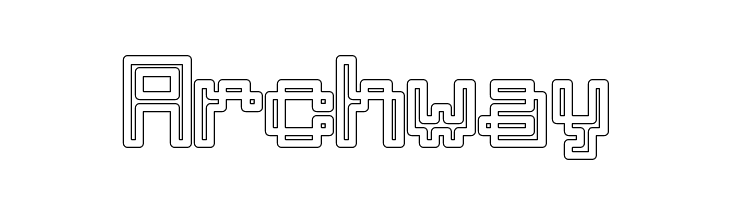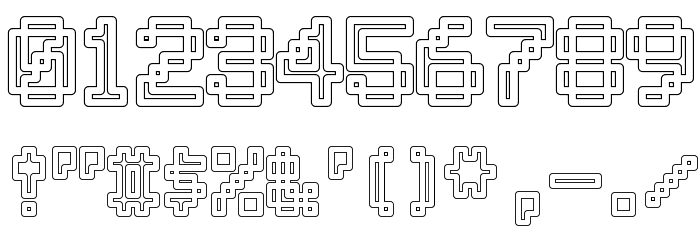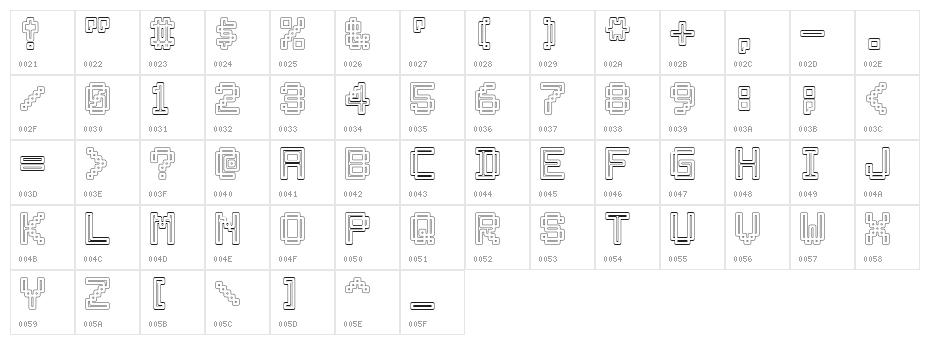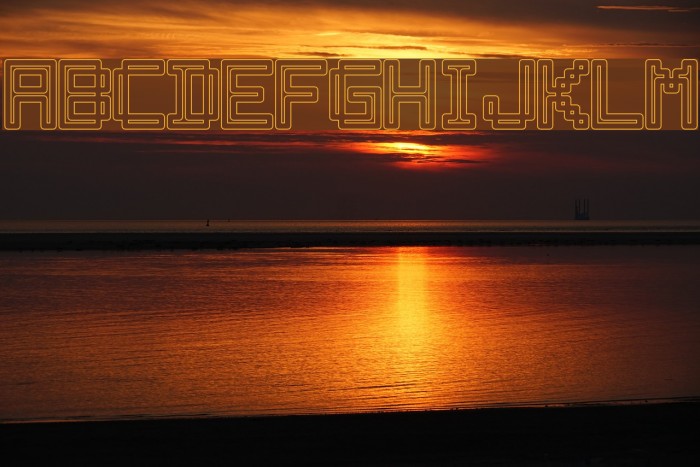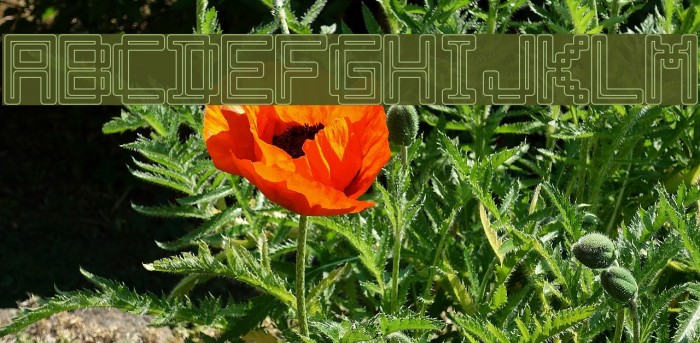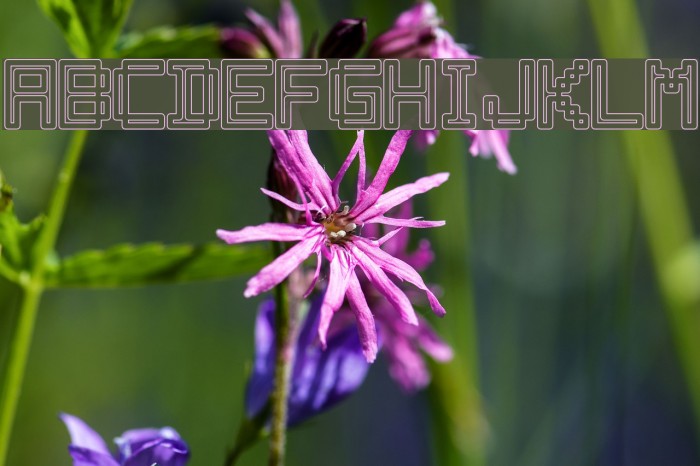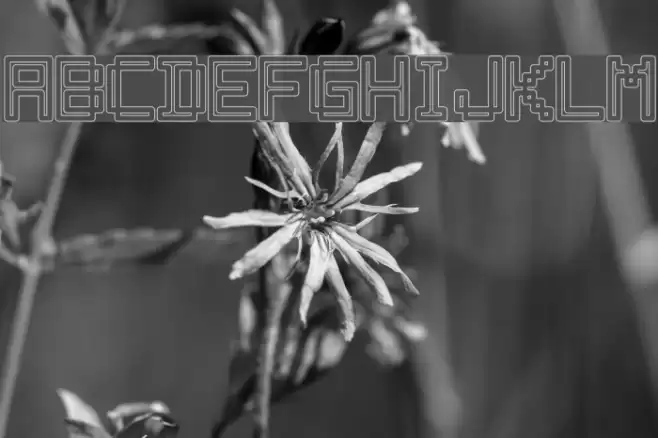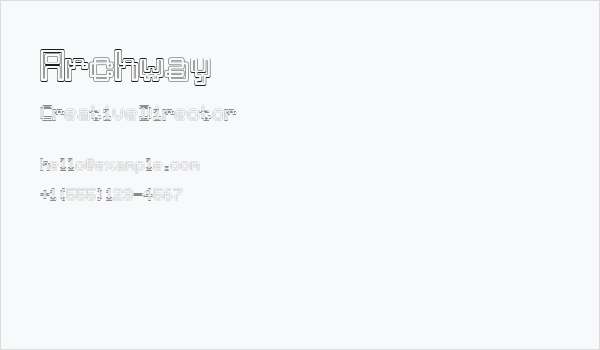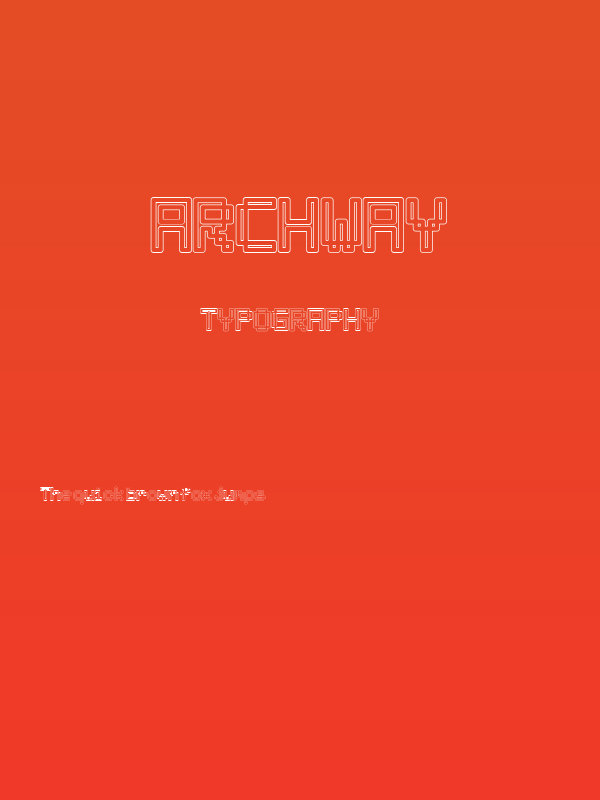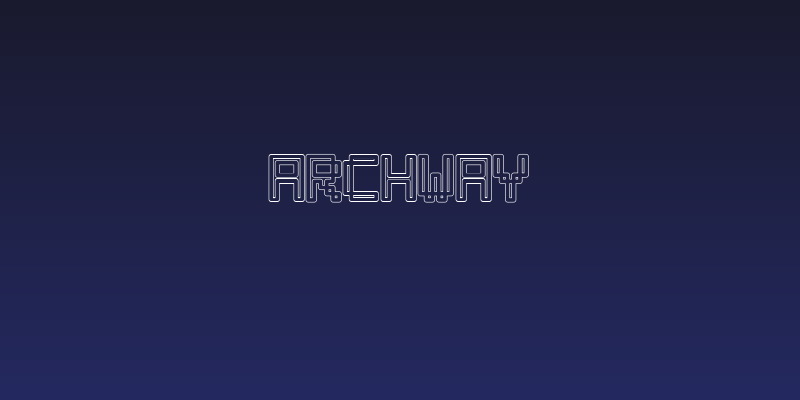
Archway Font
Archway Description
This font features a unique, decorative style with a hollow, outlined design that gives it a three-dimensional appearance. The characters are constructed with a series of parallel lines, creating a layered effect that adds depth and visual interest. The uppercase and lowercase letters maintain a consistent geometric structure, with sharp angles and clean lines. The numerals and special characters follow the same design principles, ensuring a cohesive look across all elements. This font's distinct style makes it stand out, offering a modern yet playful aesthetic.
| Use Case | Logos, Posters, Digital Art |
| Proposed Projects | Ideal for use in graphic design projects, such as posters, logos, and digital artwork, where a bold and eye-catching font is needed. |